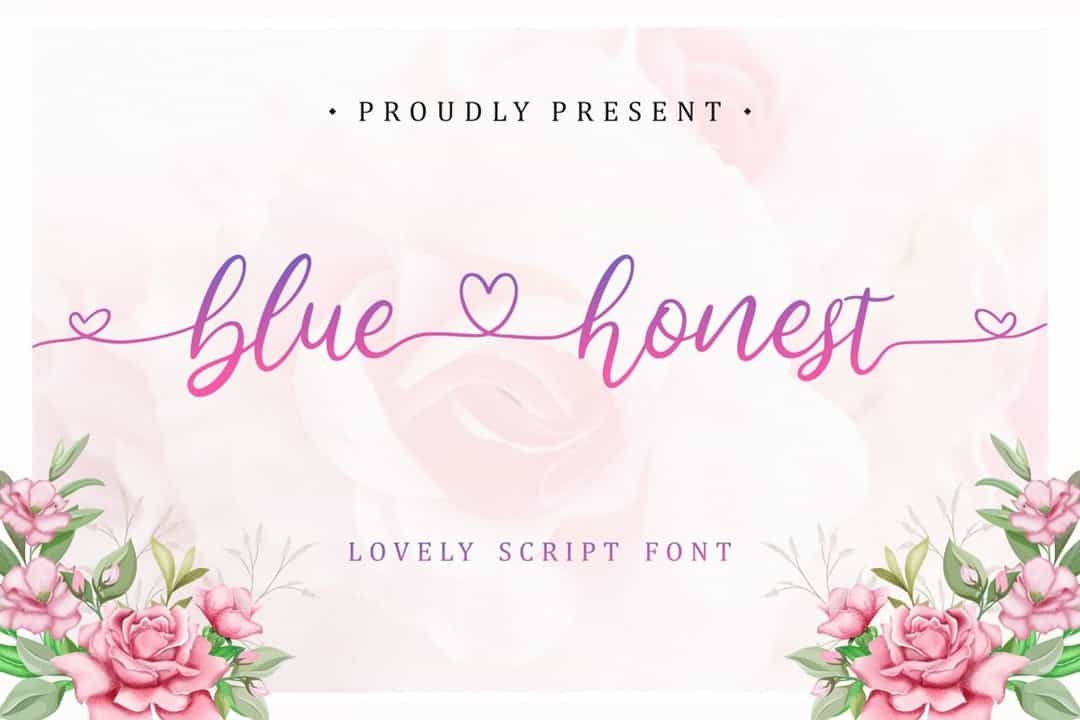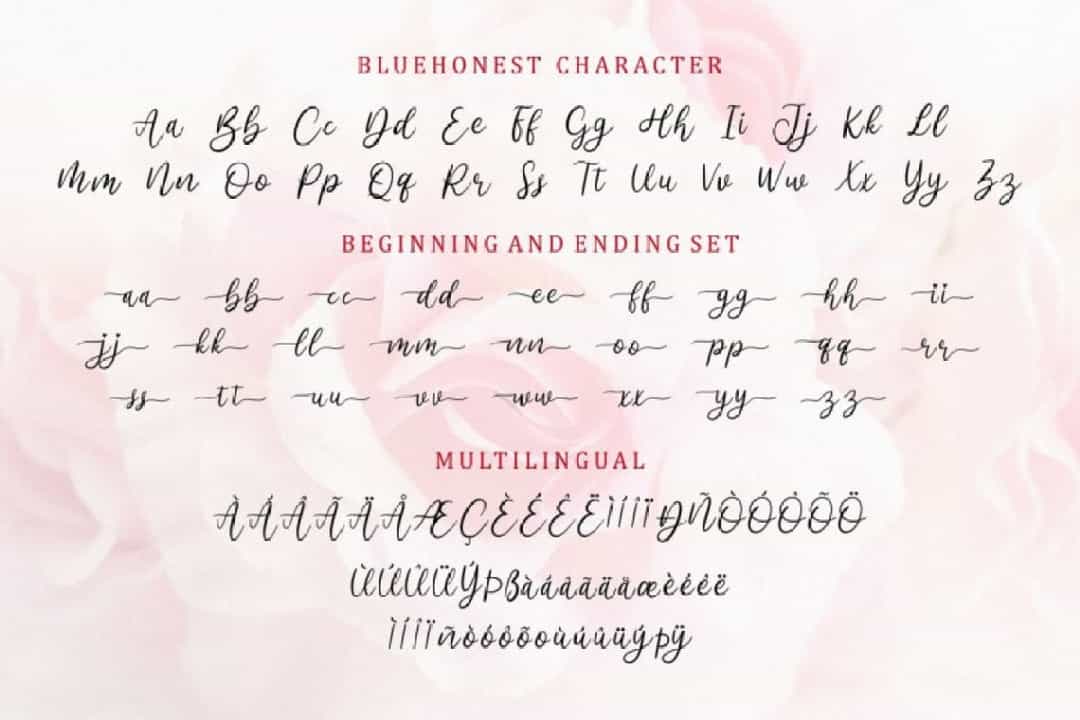
Bluehonest is an elegant script font therefore it can be used for logo, packaging, projects, wedding, social media posts or anywhere that need to put words at the back. Also of note, OTF and multilingual support is provided with Bluehonest.